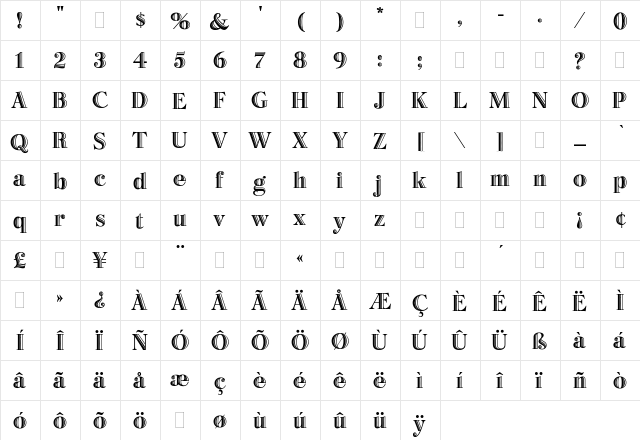
BertiePlain Regular
Design Context for BertiePlain Typeface
BertiePlain takes a measured approach to typography — its balanced proportions and neutral character make it a reliable workhorse for both digital and print work.